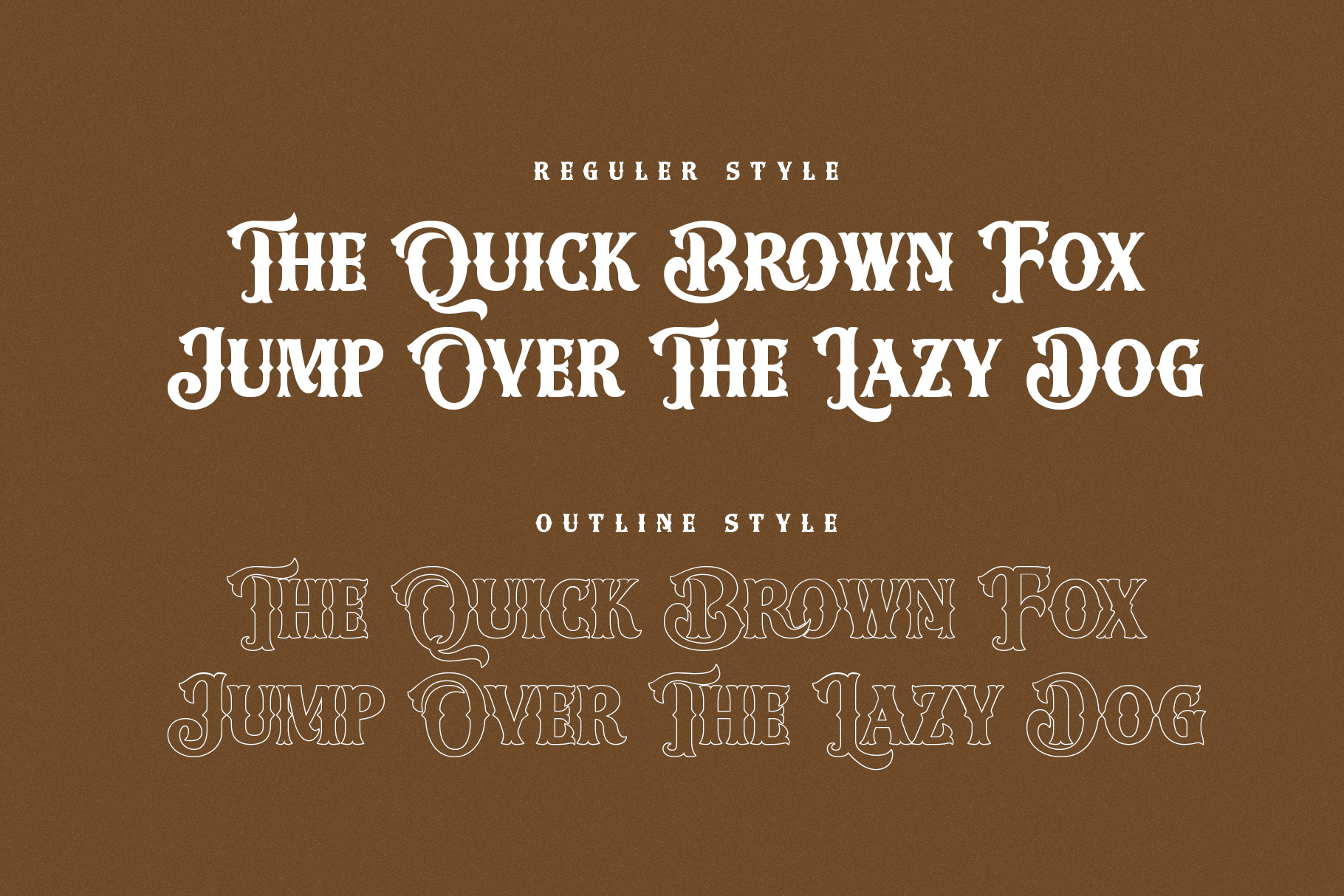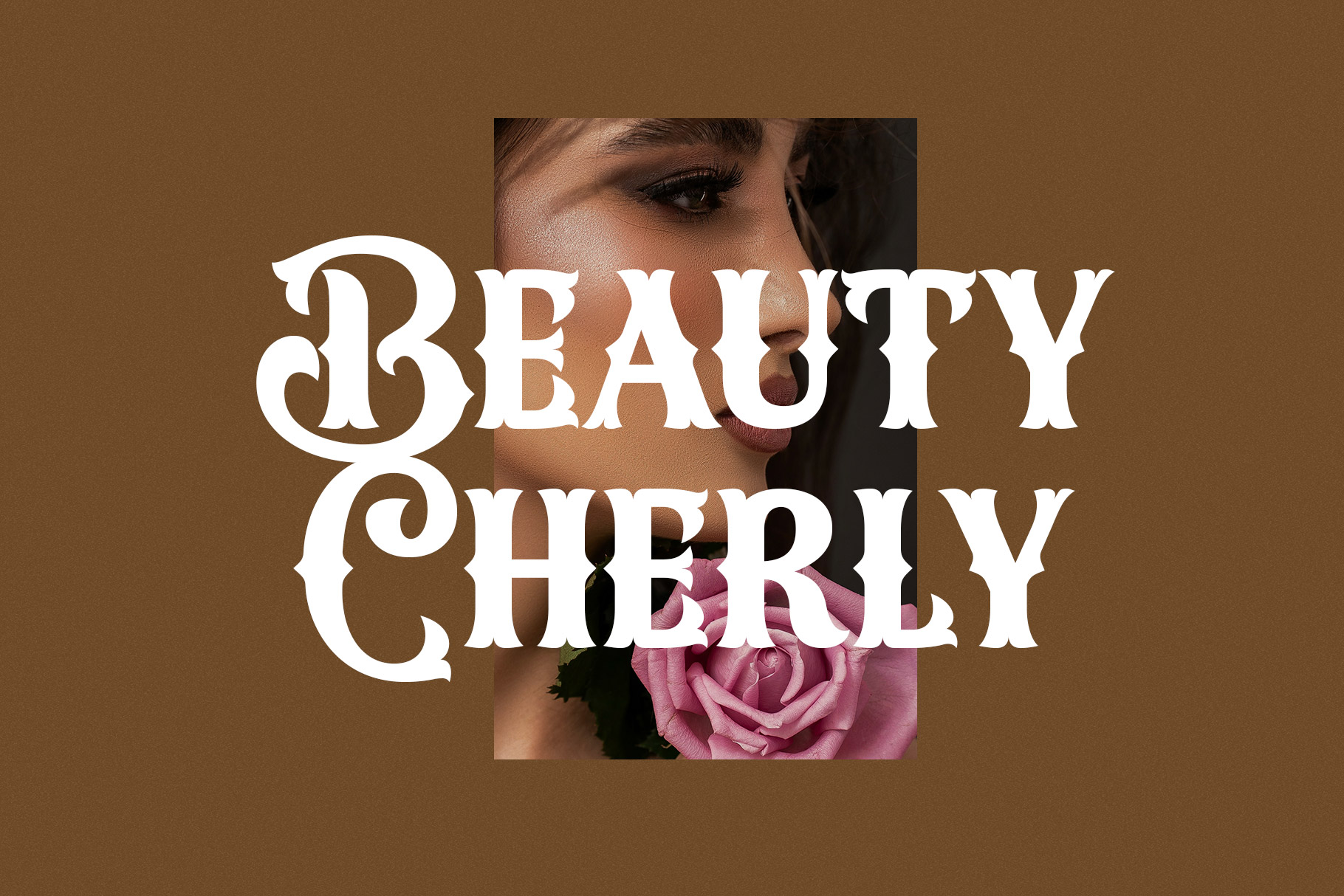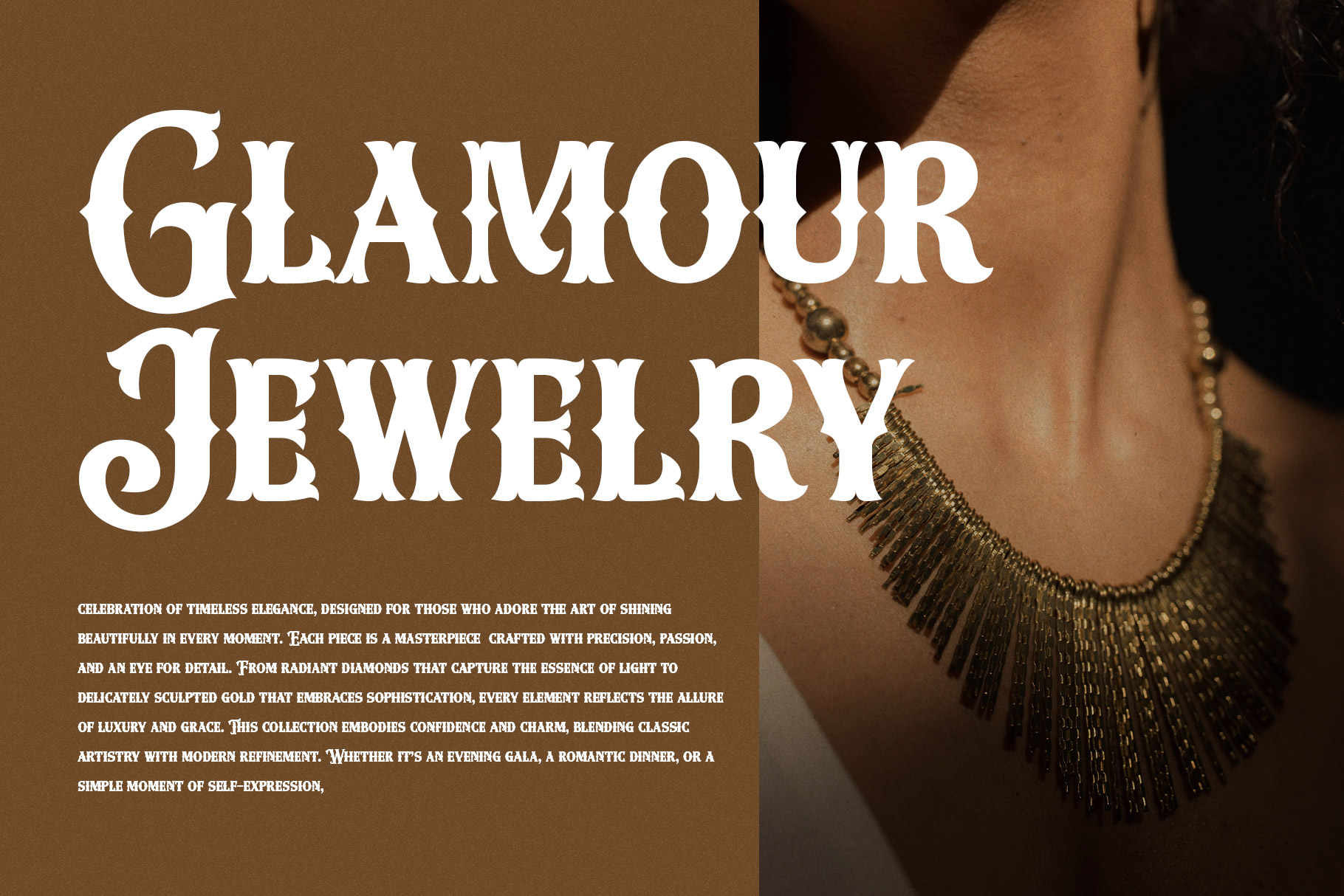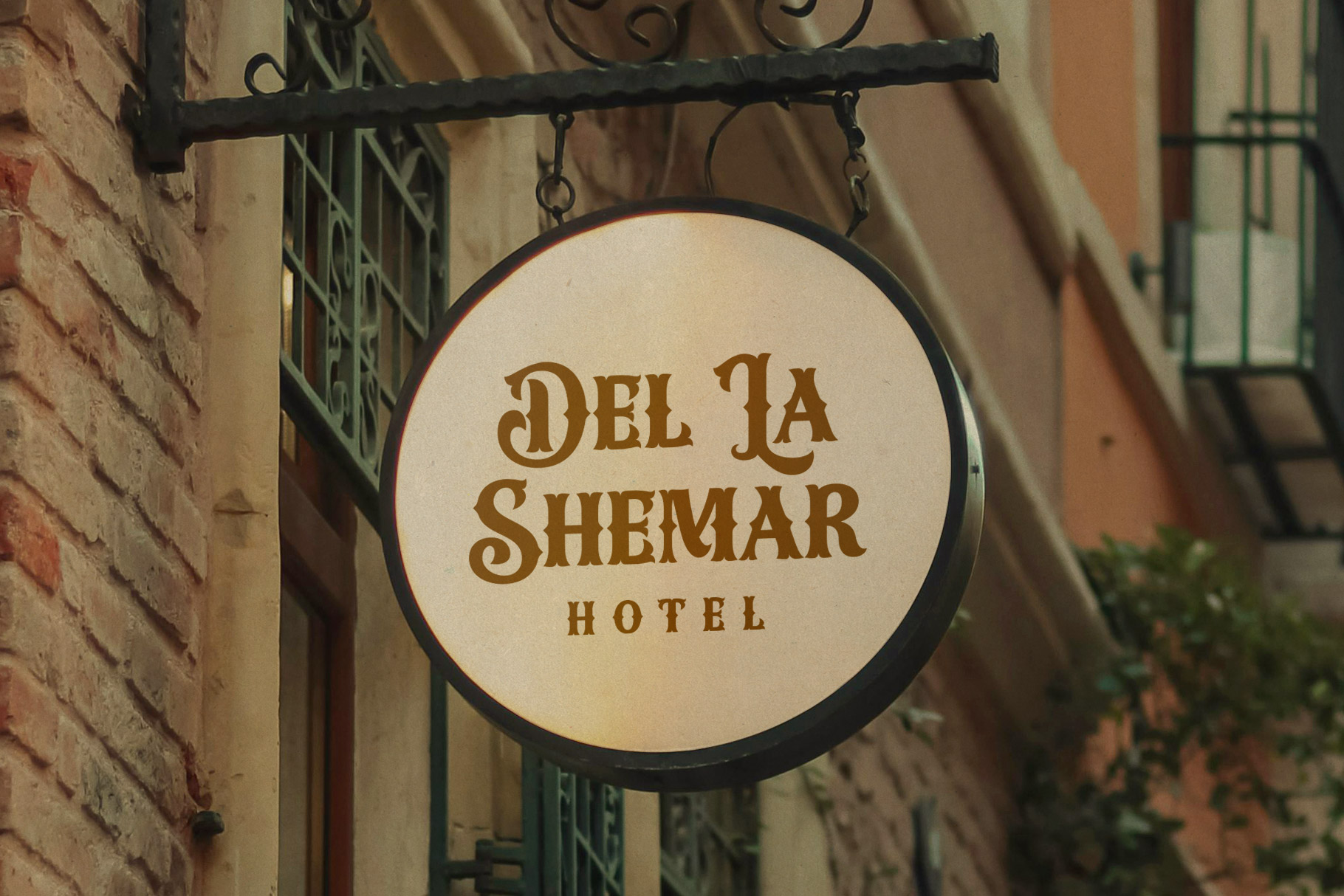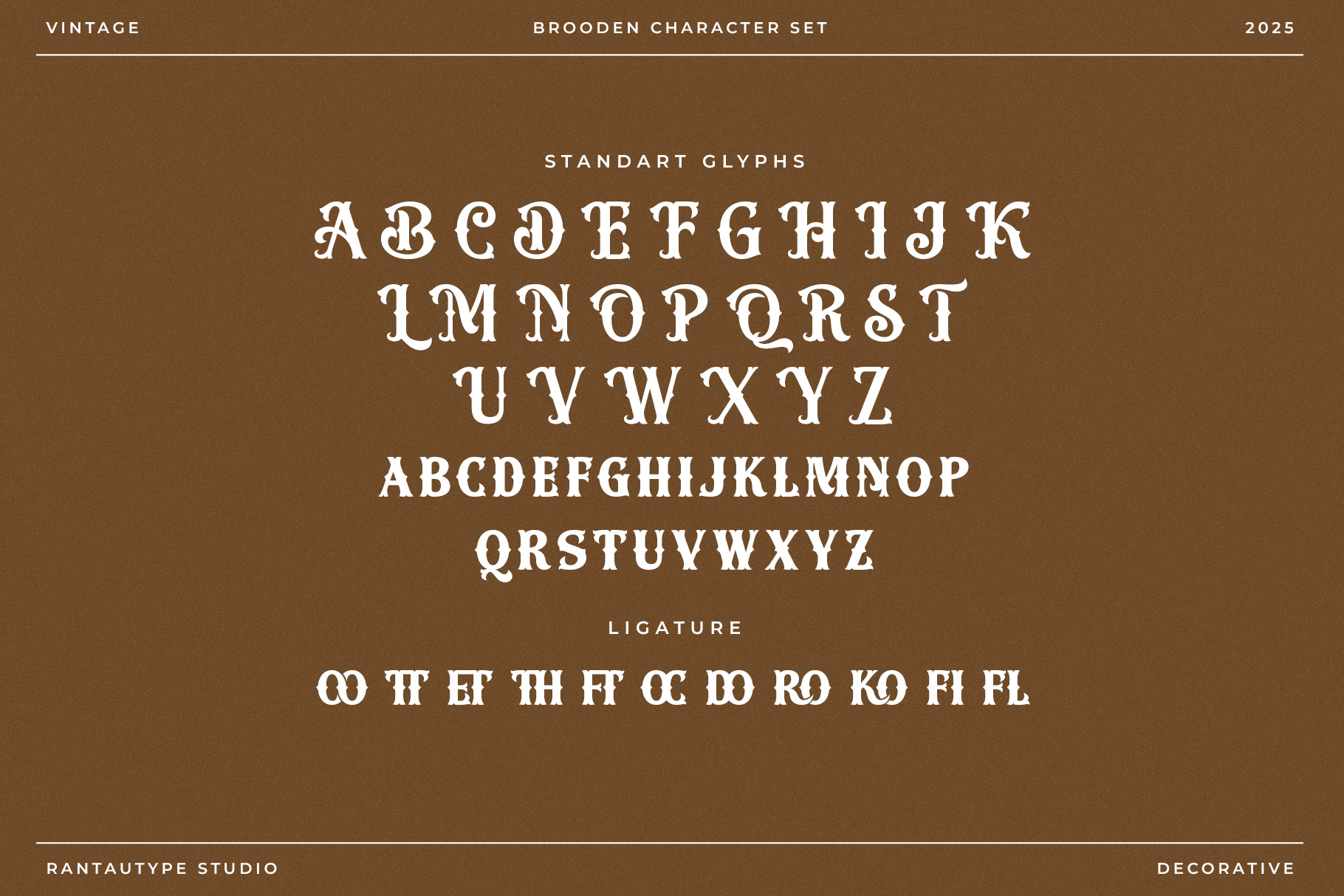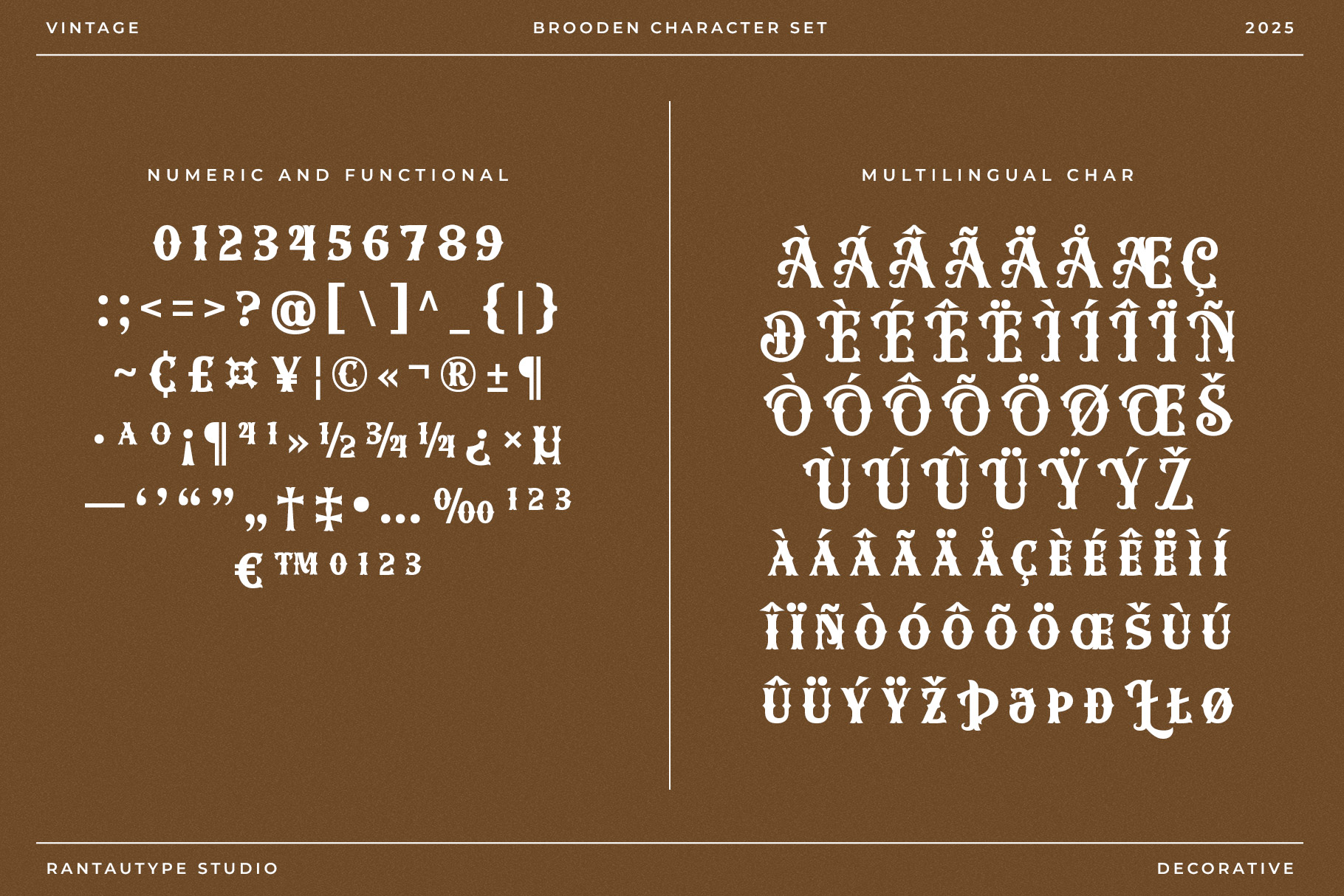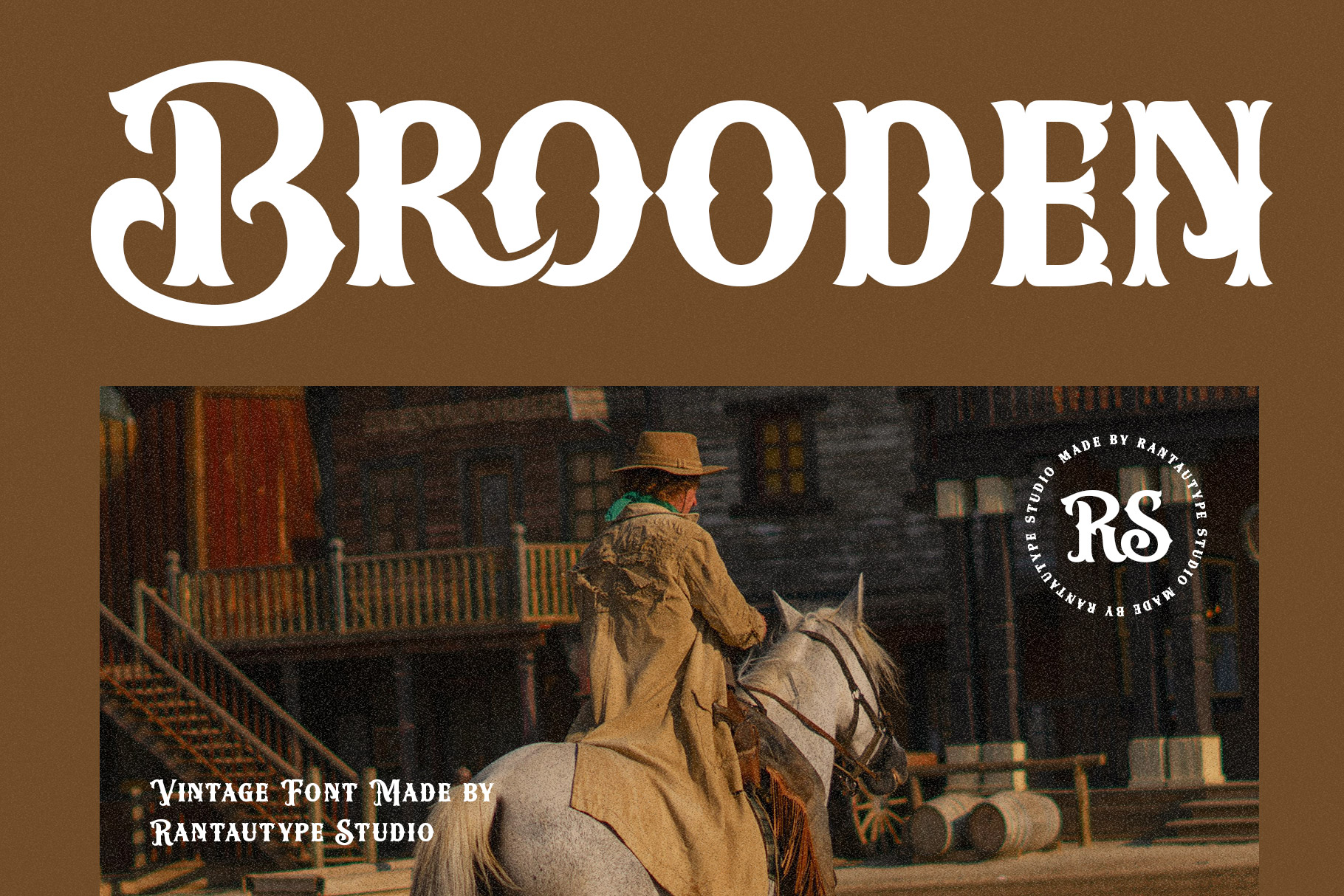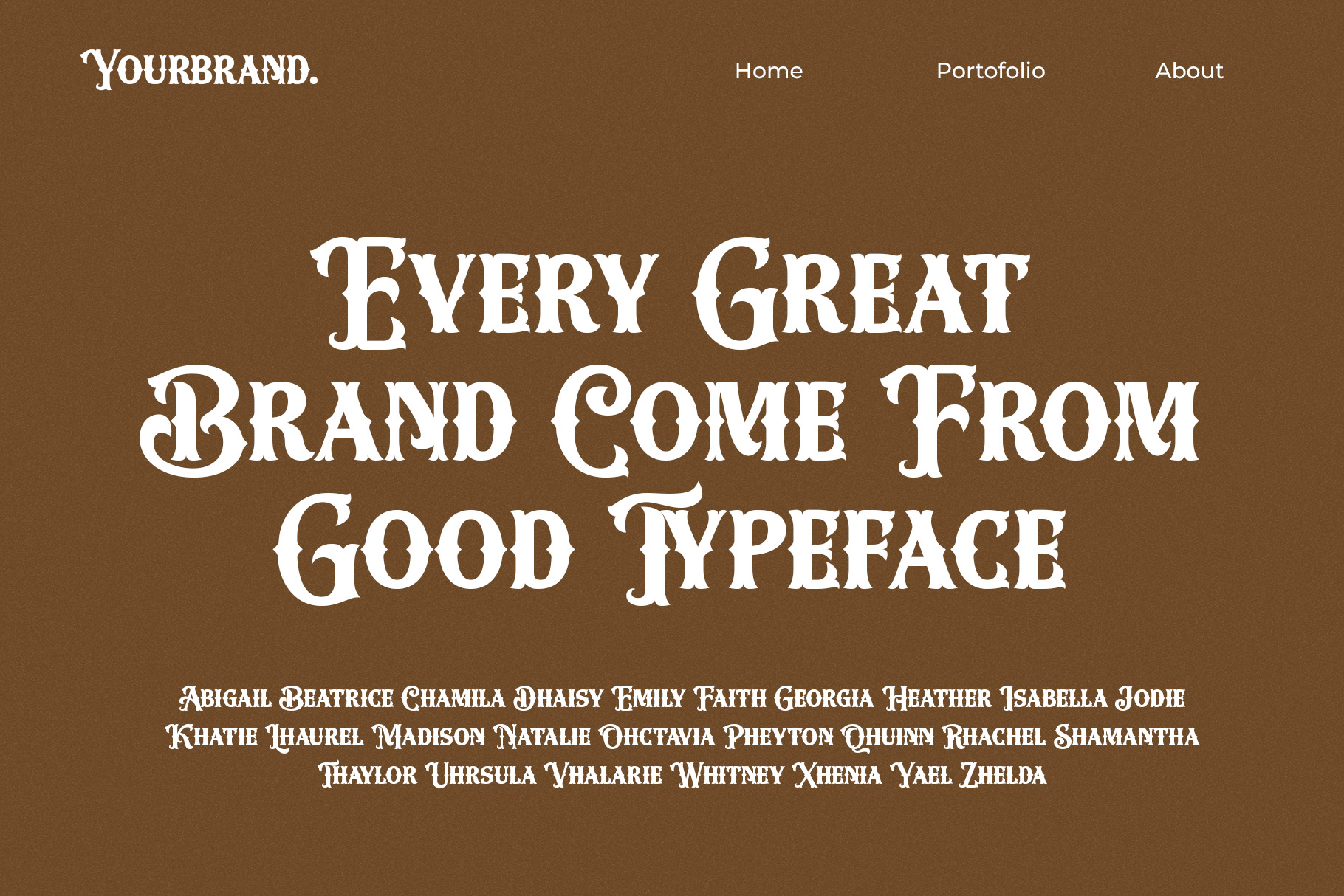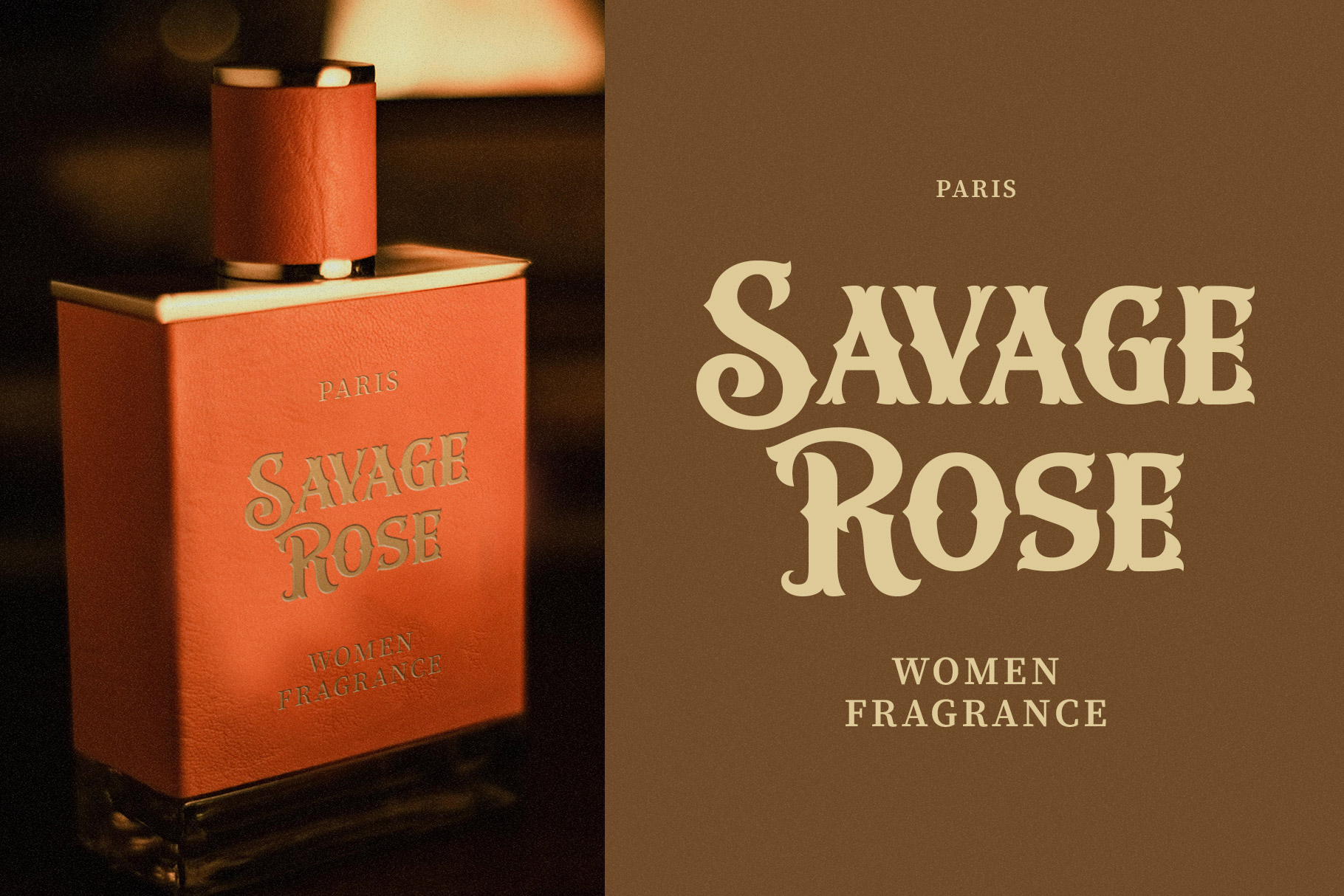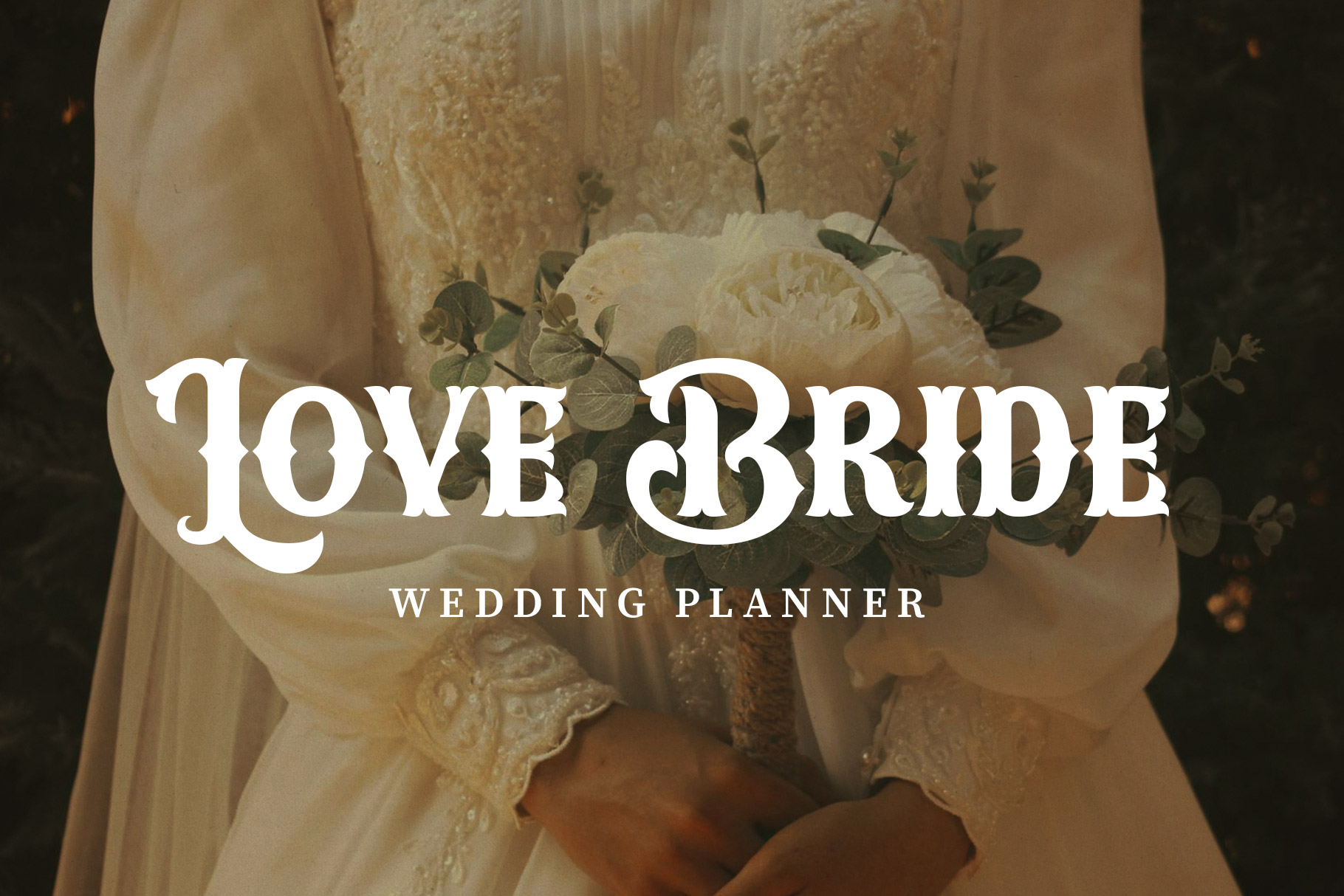
Brooden Vintage Decorative Font
Brooden is captivating blend of artistry and nostalgia, designed to bring the charm of the past into the beauty of the present. Inspired by the intricate lettering styles of early twentieth-century signage, packaging, and art posters, this font evokes a sense of classic sophistication and ornamental beauty.